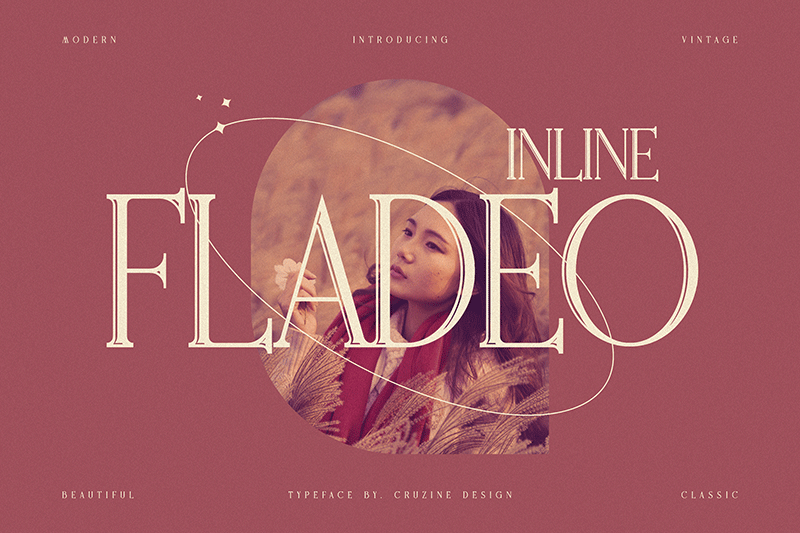
Preview and download Fladeo Font. Created by Peter Olexa in Fancy Retro styles with 100% Free license.
Font name: | Fladeo |
Author: | Peter Olexa |
Note by Peter Olexa | |
Enjoy this elegant, retro & decorative serif font - this is inline version. Please check more FREE and premium fonts on deeezy.com and dealjumbo.com ;) Thanks for your support |